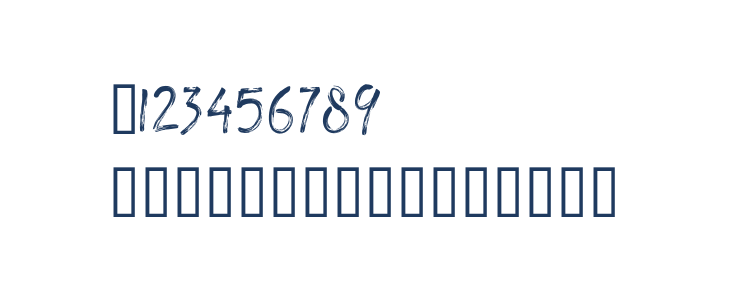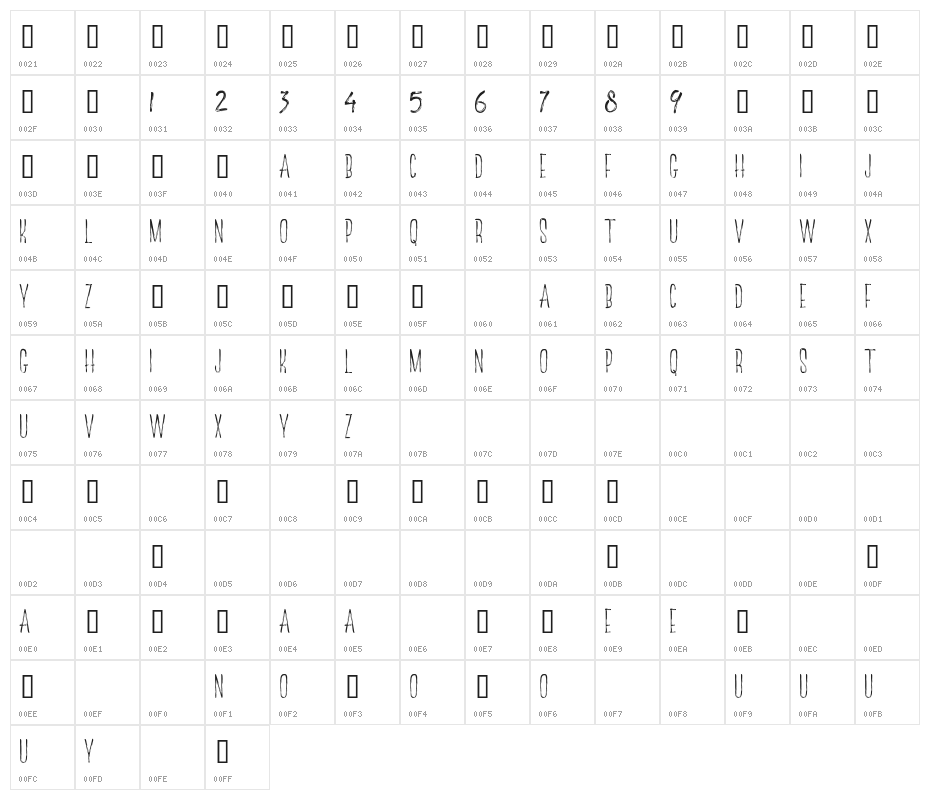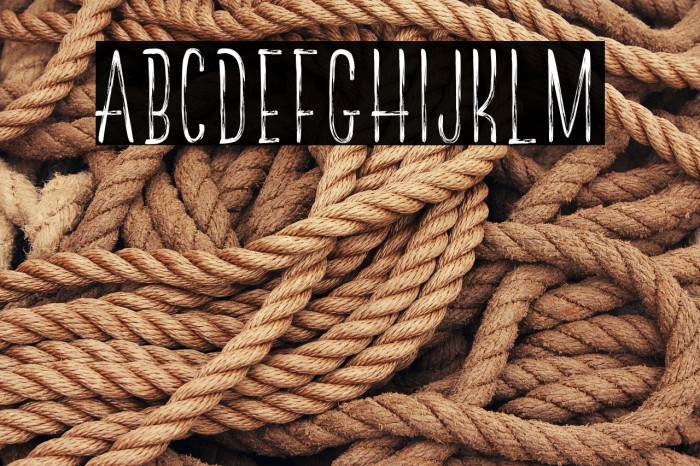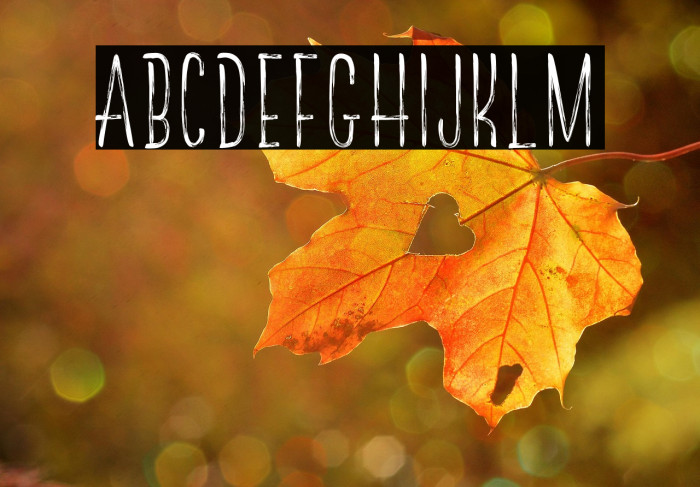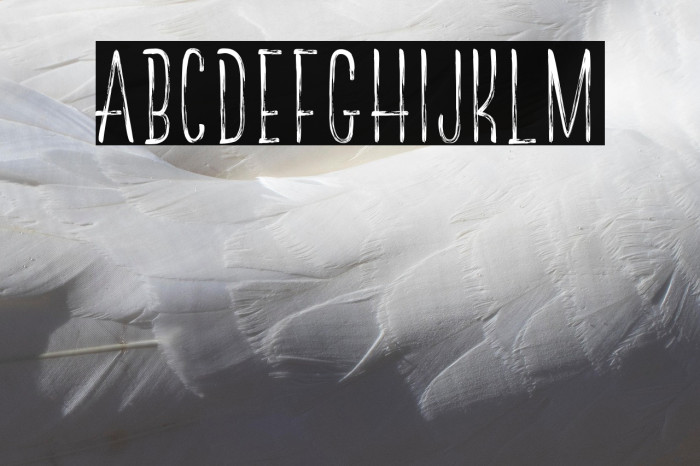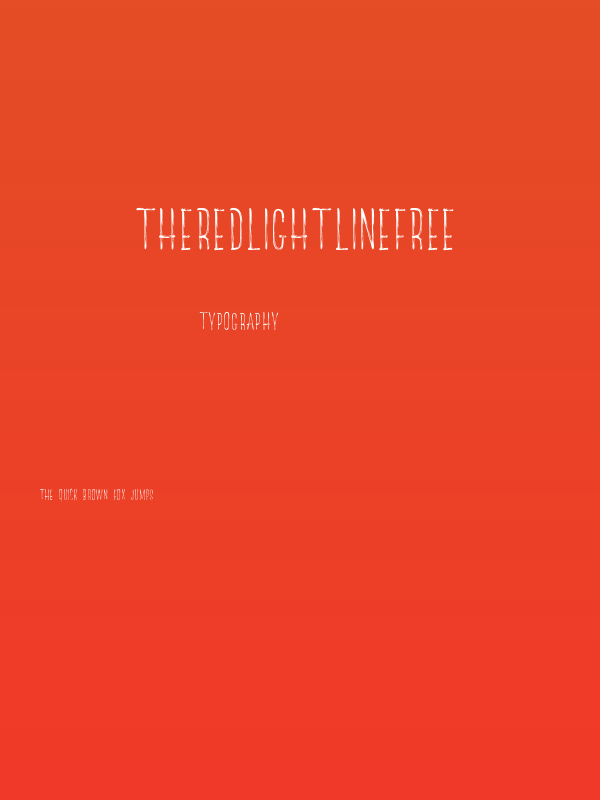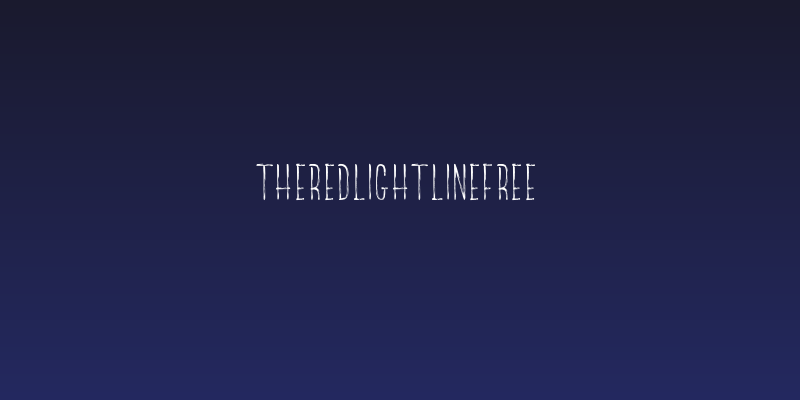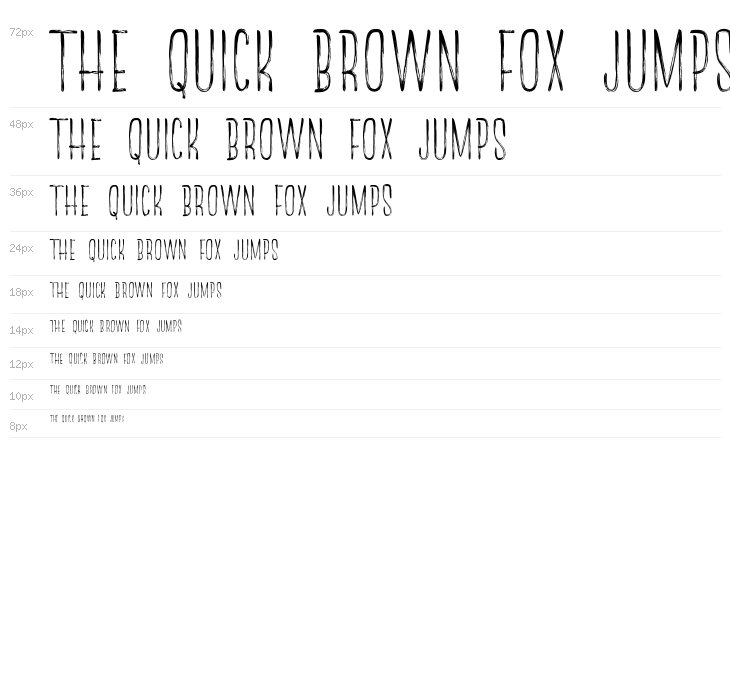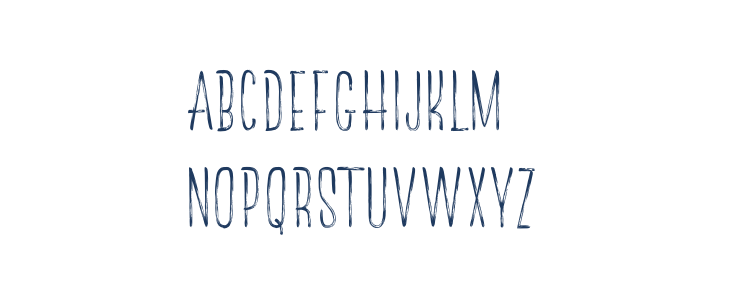
TheRedlightLineFree Font
TheRedlightLineFree Description
This font features a distressed, grunge aesthetic with a hand-drawn appearance. The uppercase and lowercase letters exhibit a rough texture, giving them a worn, vintage feel. The numerals and special characters maintain this style, adding to the overall cohesive look. The strokes are uneven, contributing to the font's unique character. This style is reminiscent of old typewriter fonts but with a modern twist, making it suitable for projects that require a rustic or edgy vibe.
| Proposed Projects | Ideal for posters, album covers, branding for rustic or vintage-themed businesses, and creative projects that require an edgy, handmade look. |